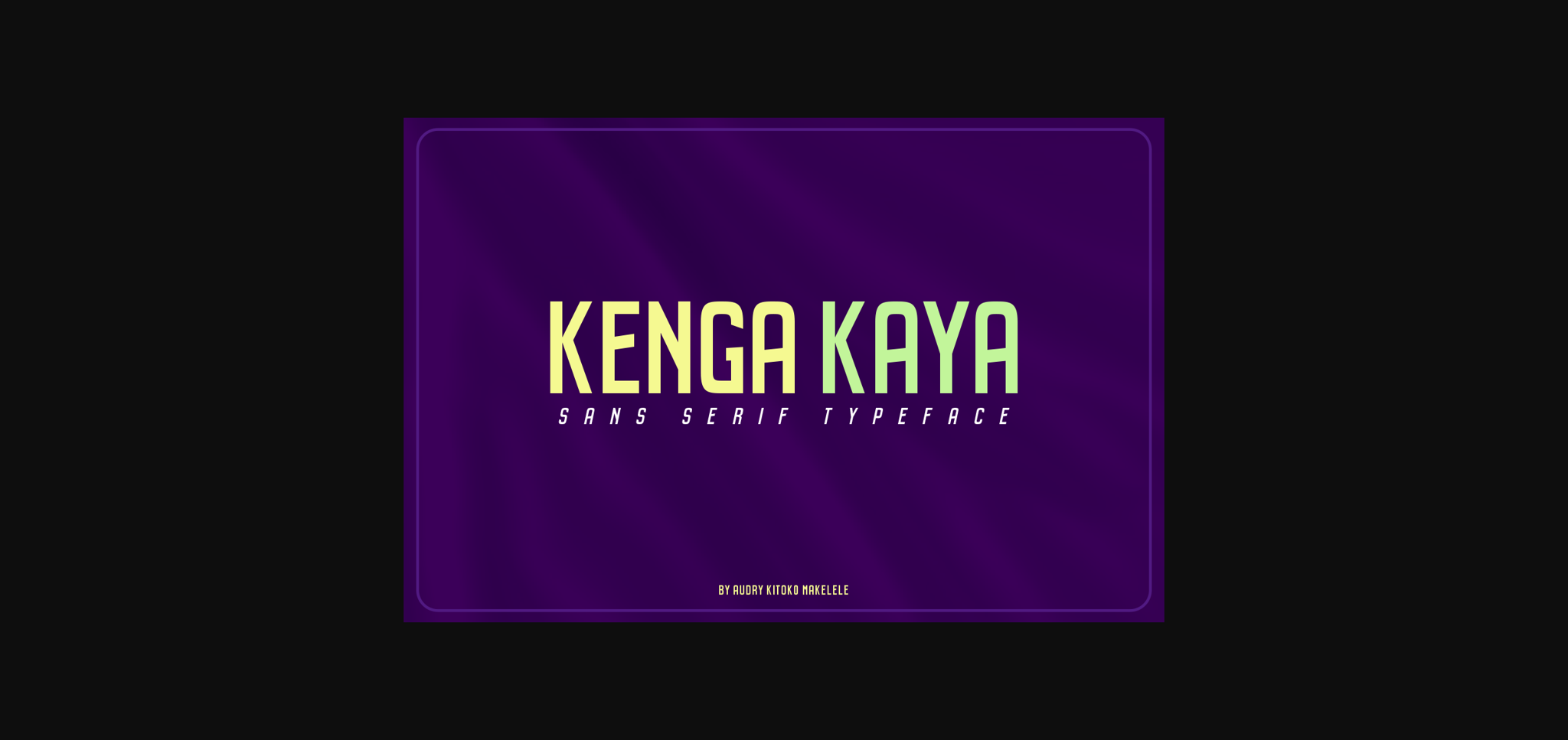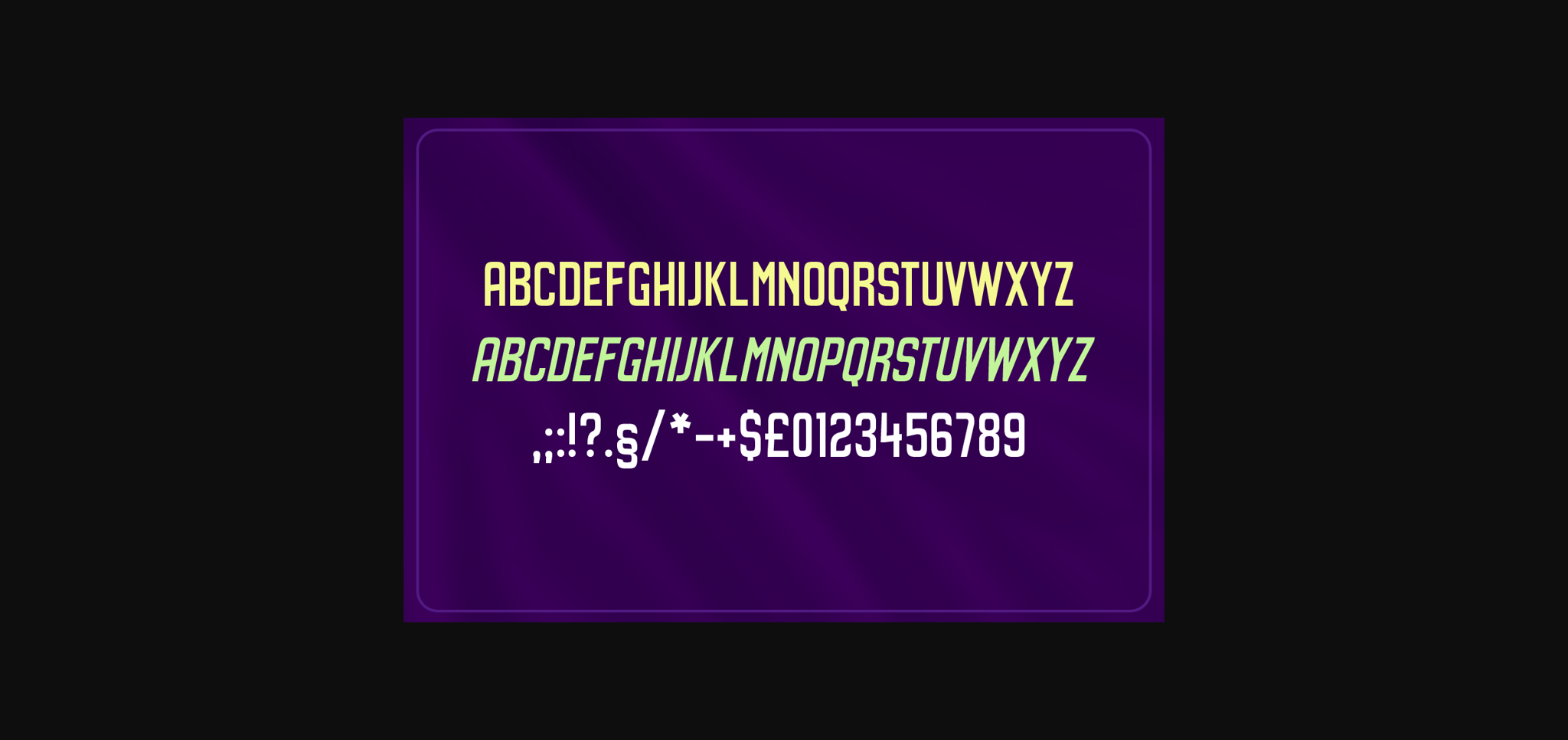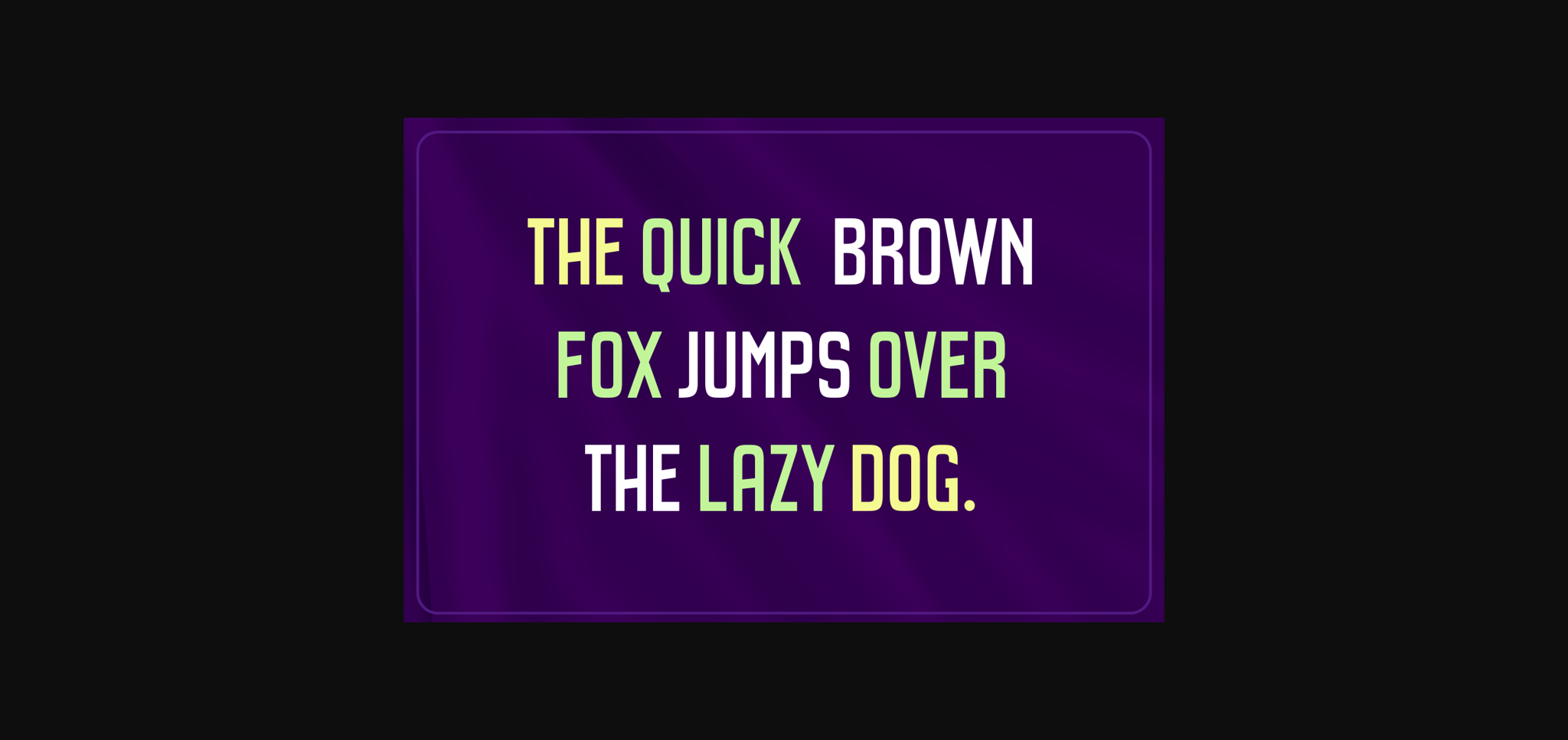
Kenga Kaya Font
About Kenga Kaya Font
Kenga Kaya is a bold and simple sans serif font. It can easily be matched to an incredibly large set of projects, so add it to your creative ideas and notice how it makes them stand out!